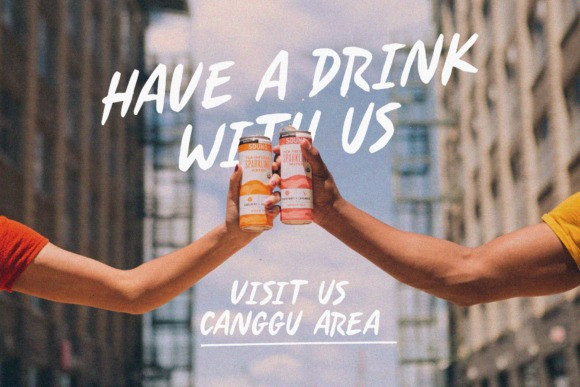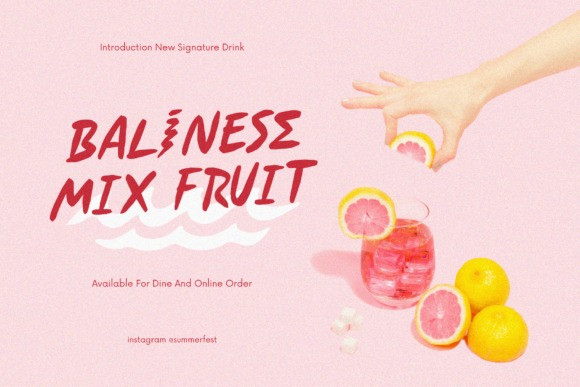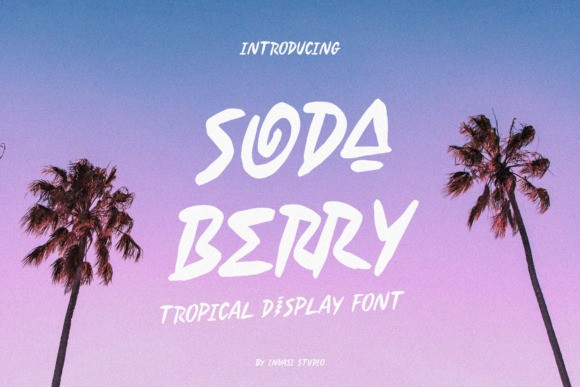
Soda Berry Font
Soda Berry Brush Font is a cool and casual display font. No matter the topic, this font will be an incredible asset to your fonts’ library, as it has the potential to elevate any creation.